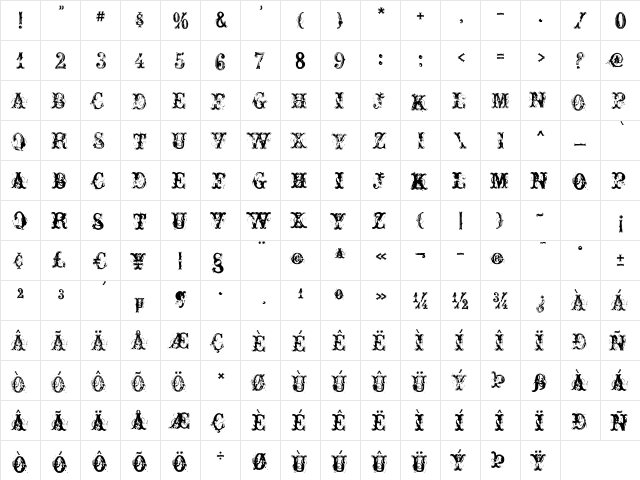
Nasty Regular Font Preview
Nasty Regular
Design Context for Nasty Typeface
Nasty is a composed and adaptable typeface that performs quietly and consistently across a wide range of design contexts.